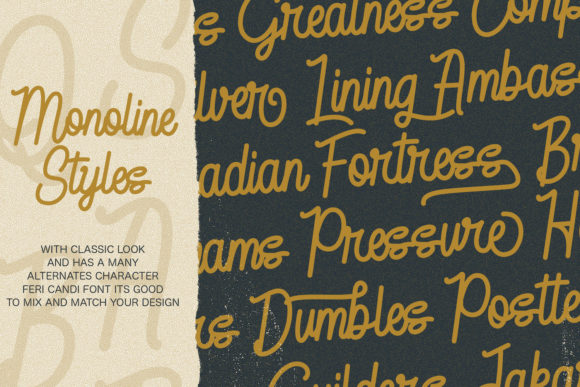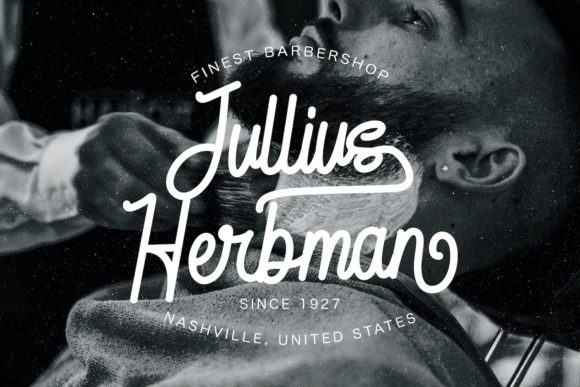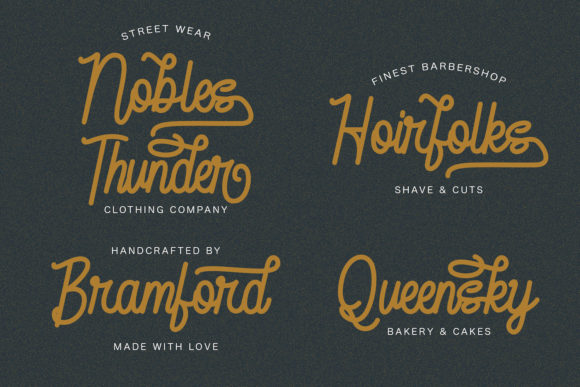
Introduction to Feri Candi Font
Feri Candi is a unique and dainty handwritten font.
Stylish and beautiful, this font will make the perfect choice for each of your design ideas .
Key Features of Feri Candi Font
Why Choose Feri Candi Font?
Feri Candi Font offers exceptional quality and versatility, making it a valuable addition to your design toolkit. Whether you’re creating for personal projects or commercial use, Feri Candi Font delivers professional results.